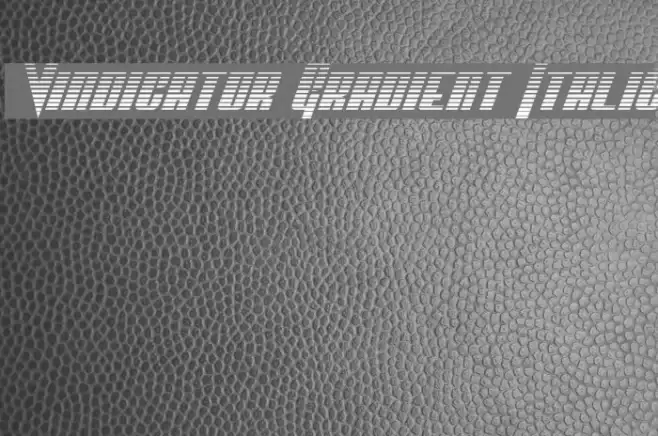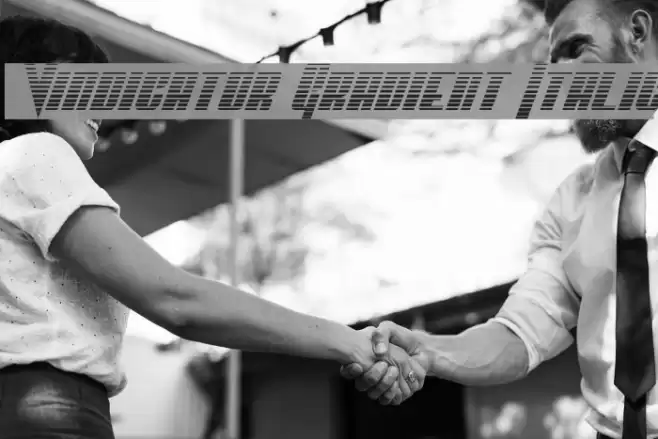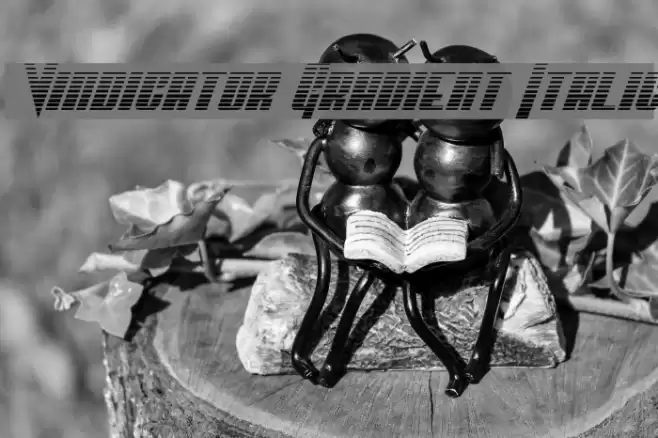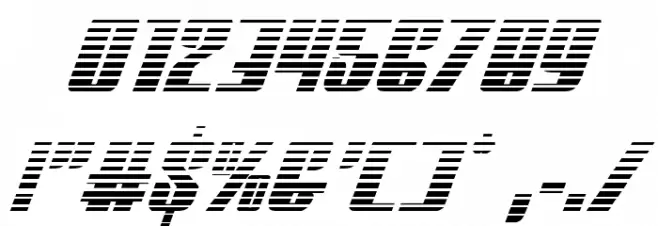
Vindicator Gradient Italic Font
Vindicator Gradient Italic Description
This font features a bold, italicized style with a distinctive gradient effect created by horizontal lines. The characters are slanted, giving a sense of motion and speed, reminiscent of racing or futuristic themes. The uppercase and lowercase letters maintain a consistent width, while the numbers and special characters follow the same design pattern. The overall appearance is dynamic and eye-catching, making it suitable for impactful designs.
Bold, italicized font with a gradient effect and dynamic style from Uncategorized fonts.
- Proposed Projects: Ideal for sports branding, automotive designs, futuristic posters, and dynamic logos.
- Overall Style: Futuristic, Dynamic